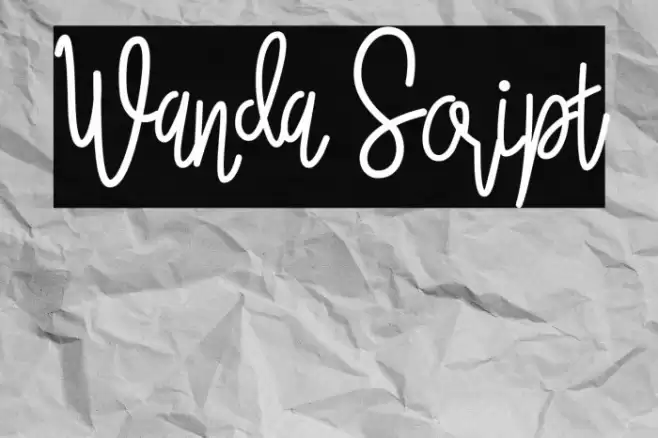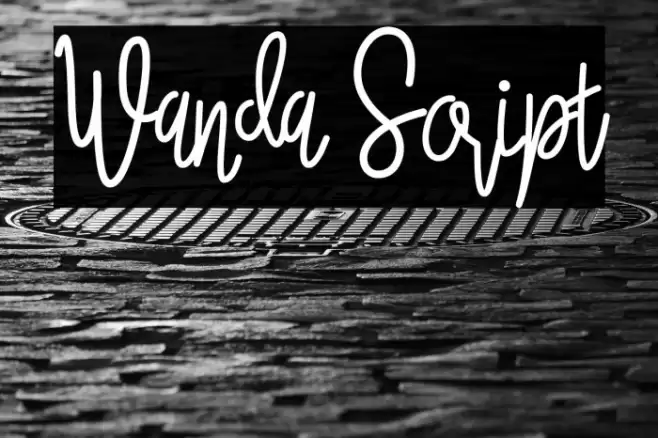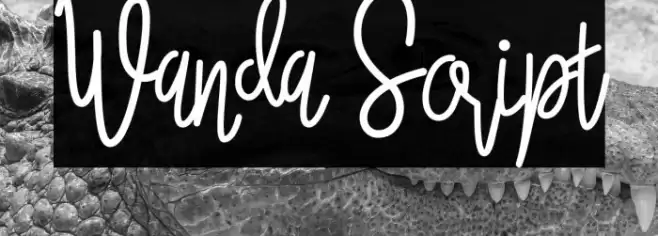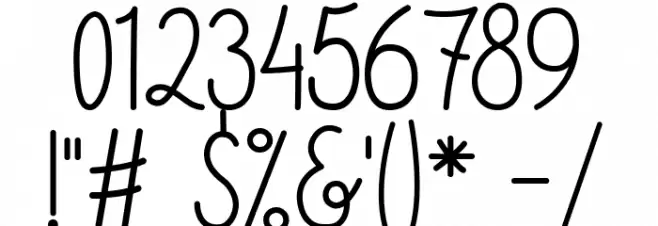
Wanda Script Font
Wanda Script Description
This font features a lively and flowing script style, characterized by its cursive and interconnected letterforms. The strokes are smooth and rounded, giving it a friendly and approachable appearance. The uppercase letters are slightly more elaborate, with loops and swirls that add a touch of elegance. The lowercase letters maintain a consistent flow, enhancing readability while retaining a handwritten charm. Numbers and special characters are designed to match the overall script style, ensuring a cohesive look across all elements.
A lively, flowing script font with interconnected letterforms and a friendly appearance from Regular fonts.
- Proposed Projects: Ideal for wedding invitations, greeting cards, personal branding, and creative projects that require a personal touch.
- Use Case: Logos, Invitations, Greeting Cards